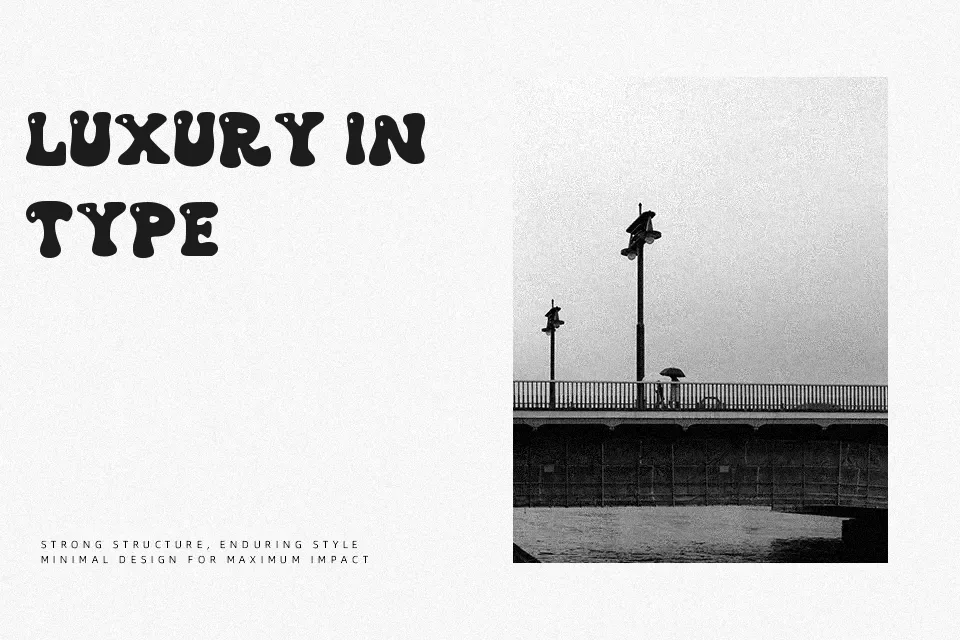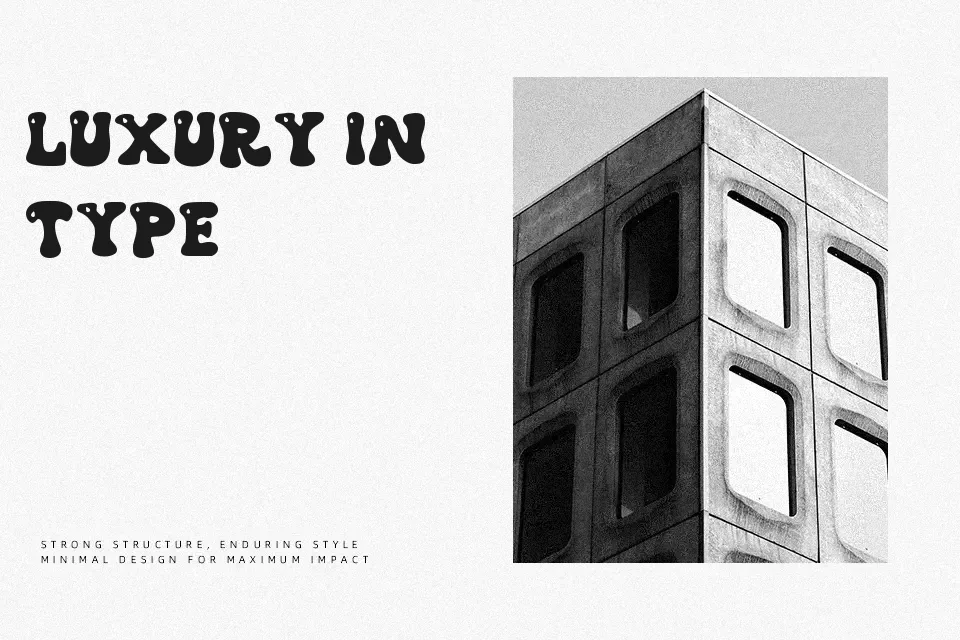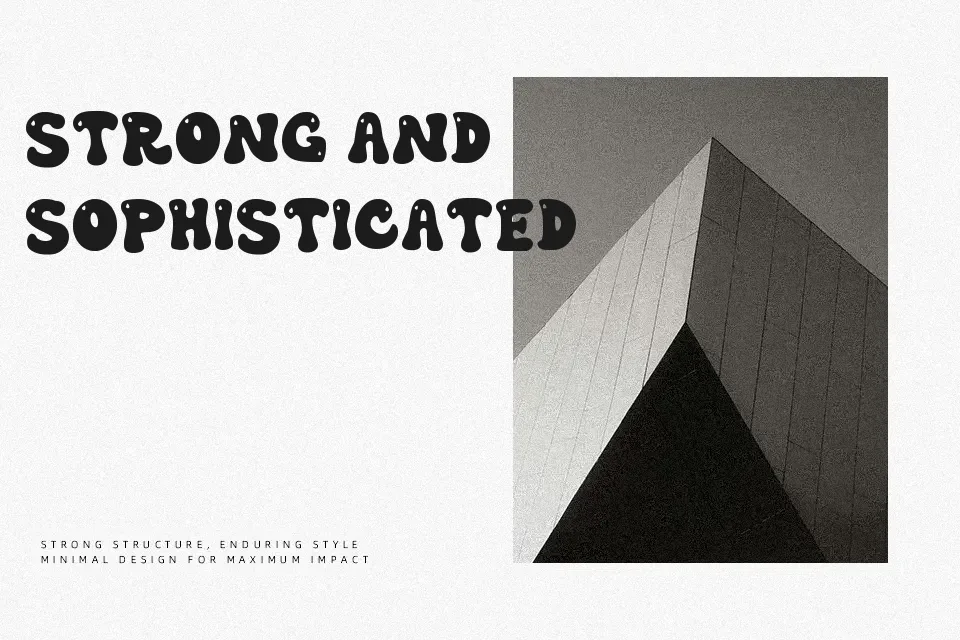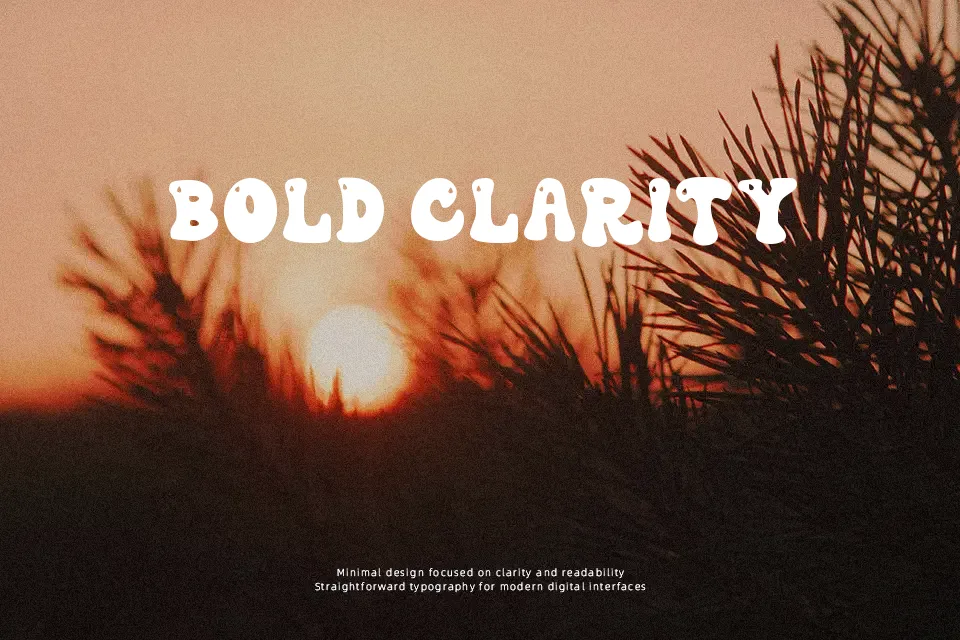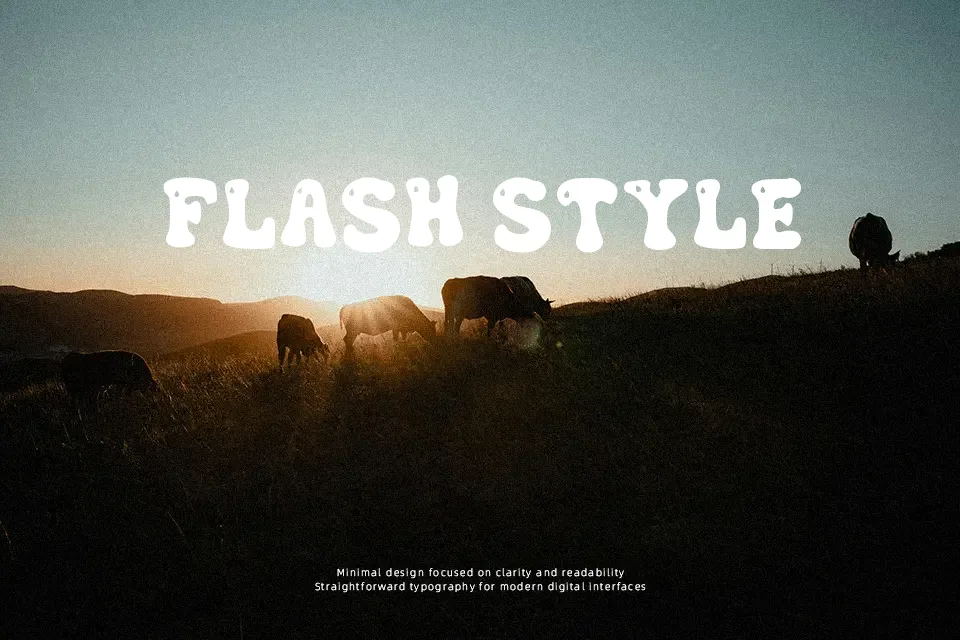
Super Groovy Font
Super Groovy uses thick, rounded forms and exaggerated curves to create a compact decorative display texture. The letterforms appear broad and soft, with low stroke contrast and a lively, irregular rhythm that gives short words more character than long passages. Spacing is visually close but generally distinct at display sizes, helping headlines hold together as single graphic units. It works well for retro-inspired titles, labels, and playful promotional layouts. The dense shapes retain impact in large text, but their decorative construction becomes less comfortable to scan in small copy or extended reading.
Best For: retro product packaging,party invitation headlines,children’s poster titles,social media graphics
Not Ideal For: long paragraph text,small interface labels,corporate reports,technical manuals
Perfect for headline, logo, and packaging, with a bold and decorative style.